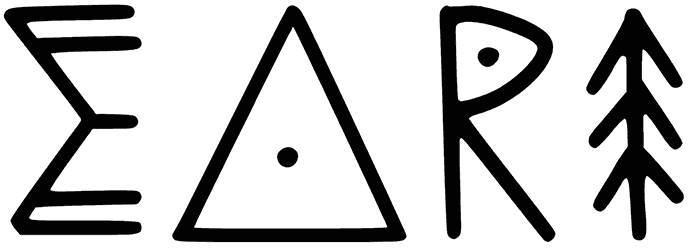
Alfabeto Vichingo Font
While standing alongside thousands of graphic content is getting harder every day, sometimes you can attract the attention of the audience by using an eerie and unique Aztec font such as Alfabeto Vichingo in street posters, digital banners, graffiti, and wood engravings.
Due to the sophisticated flow and strange design, reading some of its characters would be a little bit tricky. Also, it doesn’t support lowercase letters, numbers, and punctuation.